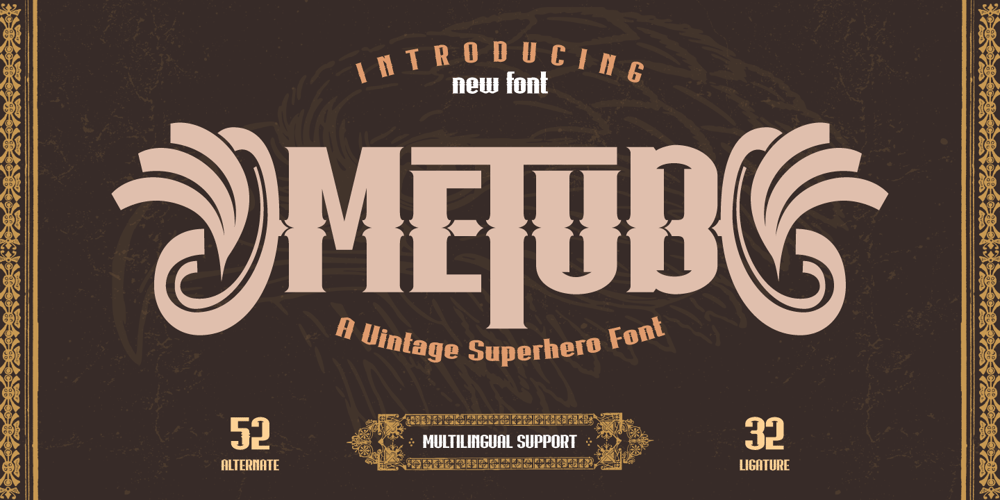
Metub Font Family was designed by Rozikan and published by Twinletter. Metub contains 1 styles and family package options. Introducing Metub, the superhero display font with a unique and powerful serif style that’s sure to make your designs stand out. Each letter is meticulously crafted to convey strength and individuality, making this font the perfect choice for bold and impactful projects. With 52 stylish alternate characters and 32 beautifully designed ligatures, Metub offers endless design possibilities that are sure to elevate your work to new heights.Whether you’re designing posters, logos, or branding materials, Metub is the ideal font for any project that demands a strong and unique aesthetic. And with multilingual support, this font is perfect for projects with a global reach. Give your designs a powerful edge with Metub today.What’s Included :- File font- All glyphs Iso Latin 1- Alternate, Ligature- Simple installations- We highly recommend using a program that supports OpenType features and Glyphs panels like many Adobe apps and Corel Draw so that you can see and access all Glyph variations.- PUA Encoded Characters – Fully accessible without additional design software.- Fonts include Multilingual support